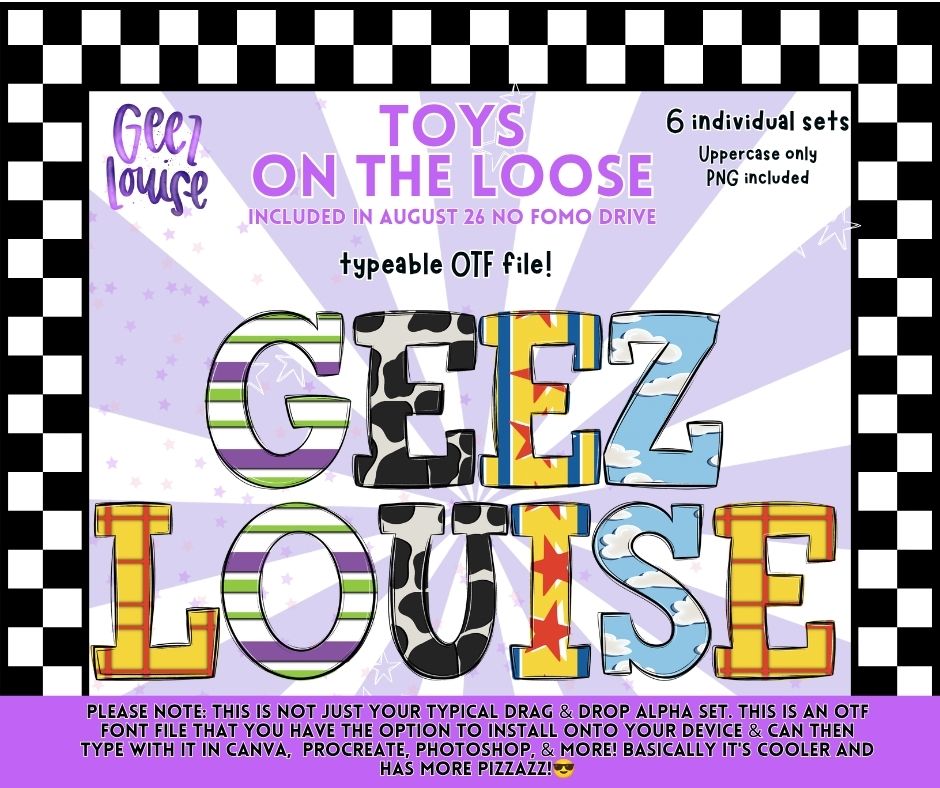
Toys on the Loose OTF Alpha Bundle | Toy Inspired Typeable Fonts | 6 Alpha Sets
The toys are officially on the loose! 🧸🚀☁️
Toys on the Loose is a fun collection of 6 toy-inspired alpha sets, each featuring its own recognizable pattern and color palette. And these aren’t just your typical drag-and-drop alphas. Each set includes a typeable OTF font, making it SO much faster to build names, sayings and custom designs.
✨ 6 individual alpha sets
✨ Uppercase letters A–Z